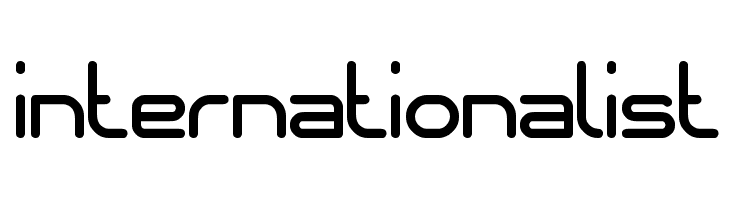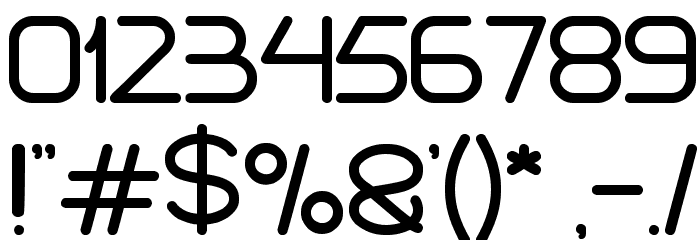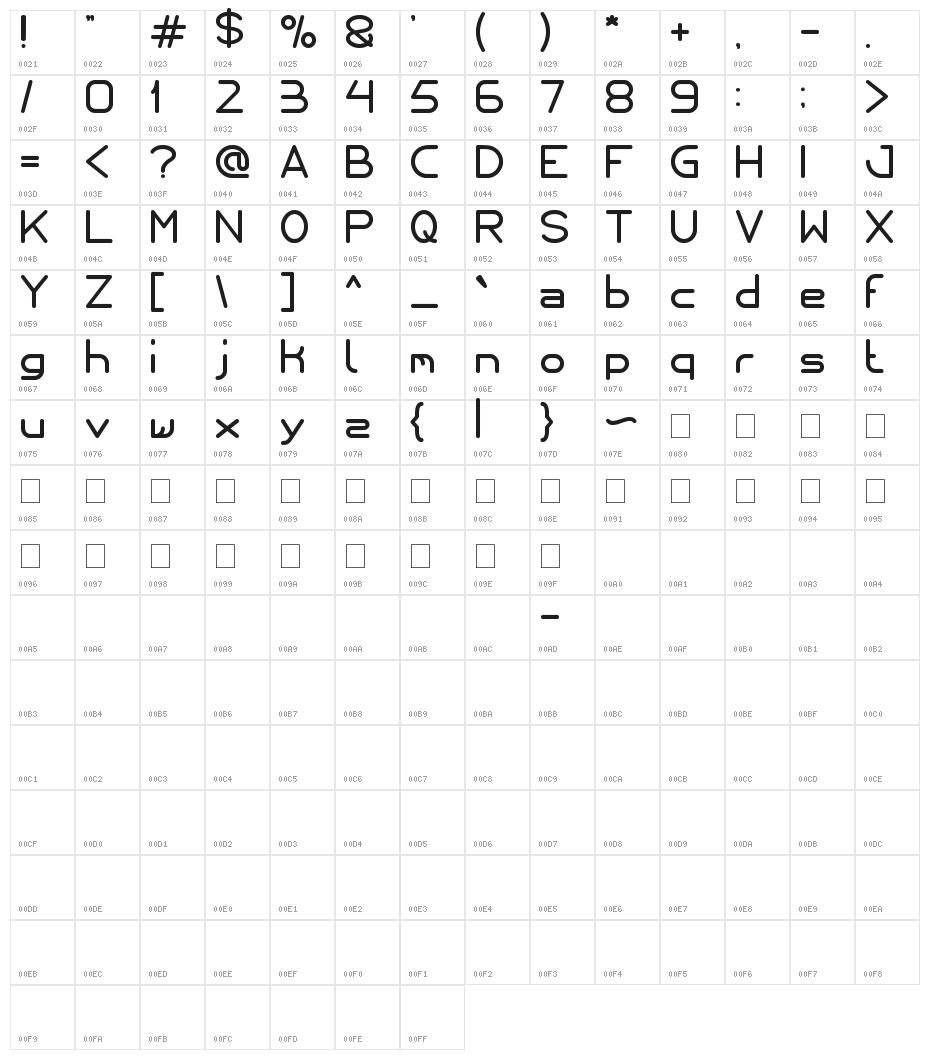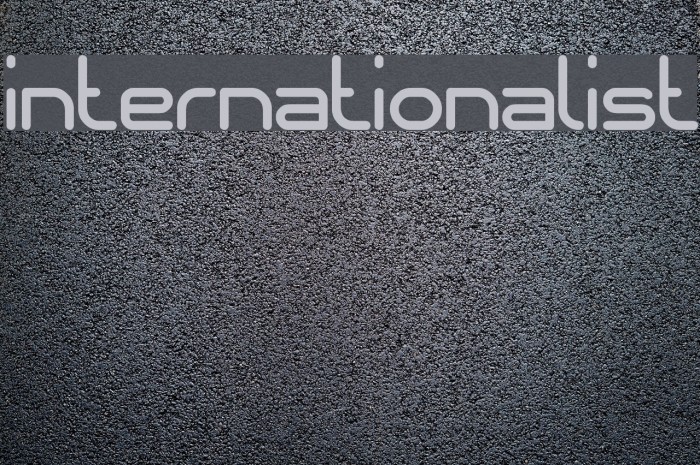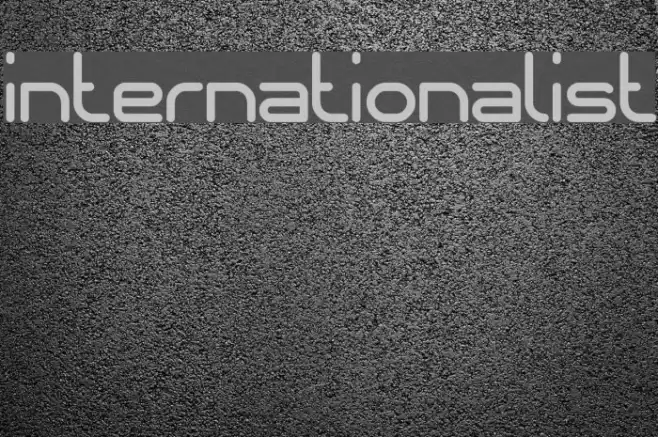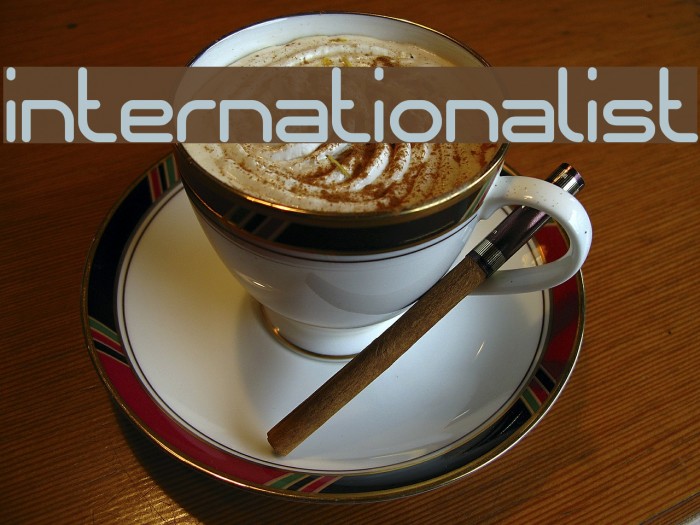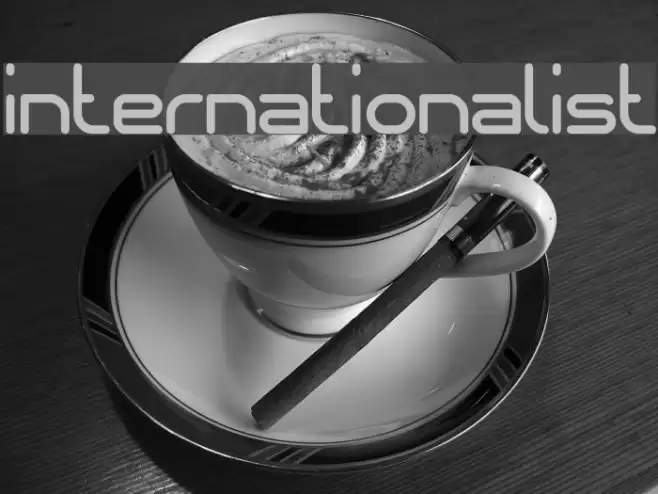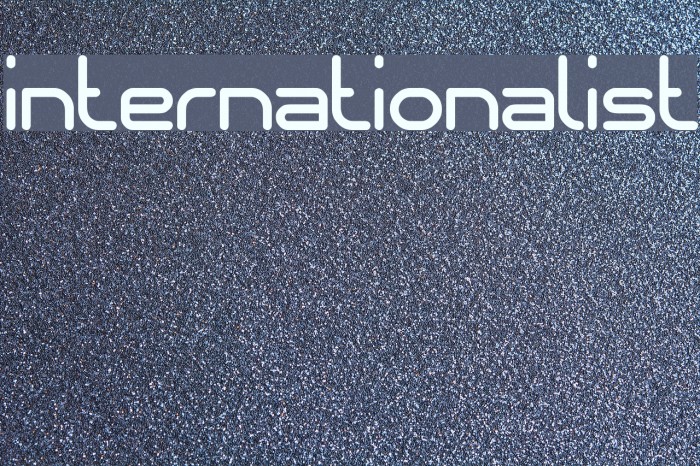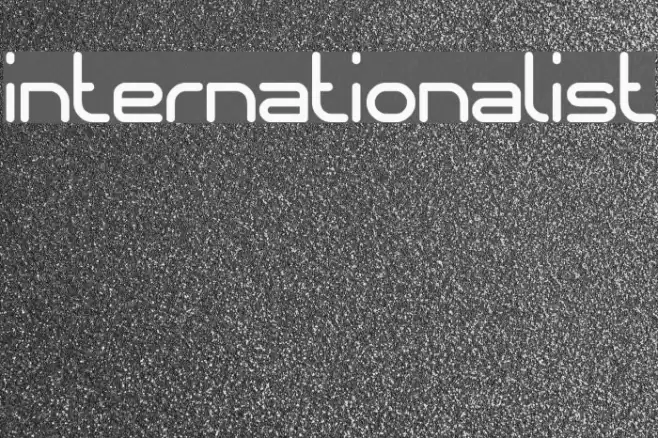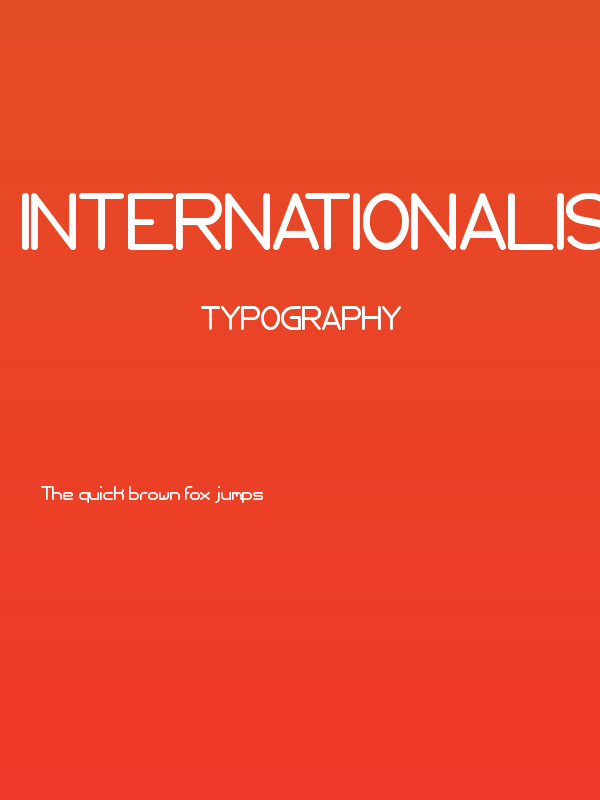
internationalist Font
internationalist Description
This font features a modern, geometric design with rounded edges and a clean, streamlined appearance. The characters are uniform in width, giving a monospaced feel, yet they maintain a distinct, contemporary style. The uppercase and lowercase letters are consistent in their rounded forms, creating a harmonious look across the alphabet. Numbers and special characters follow the same design principles, ensuring a cohesive appearance throughout. The font's simplicity and clarity make it highly readable, while its unique style adds a touch of sophistication.
Use CaseLogos, Headlines, Digital interfaces
Proposed ProjectsIdeal for tech branding, modern web design, digital interfaces, and minimalist posters.